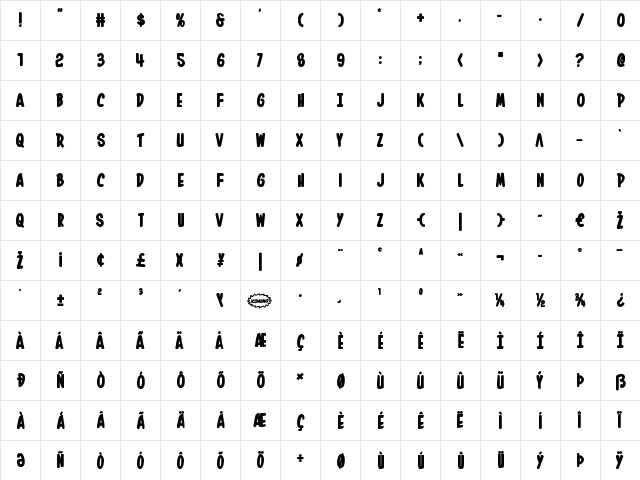
In-House Edition Bold Bold
Design Context for In-House Edition Bold Typeface
In-House Edition Bold is a composed and adaptable typeface that performs quietly and consistently across a wide range of design contexts. Its bold stroke weight gives it real presence on the page.